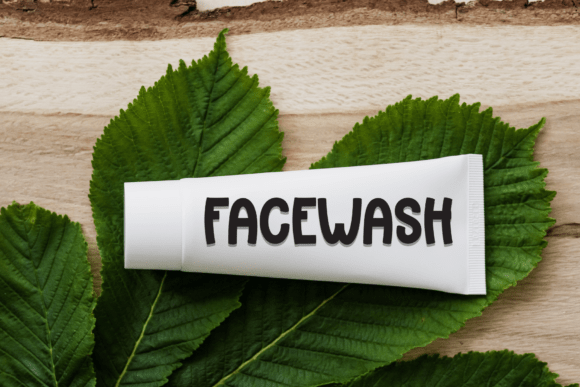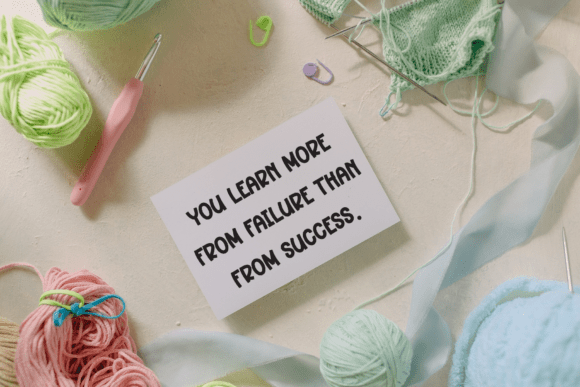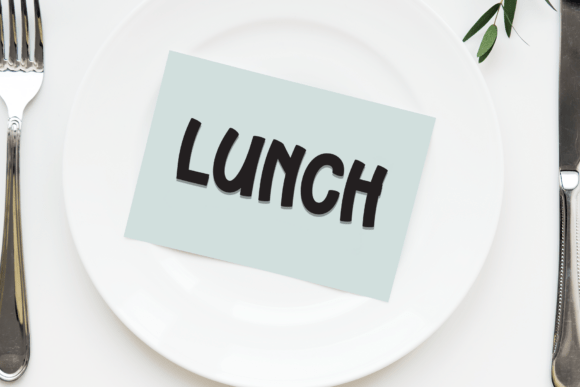
Introduction to Digital Stories Font
Digital Stories is a casual and neat display font that combines simplicity with a friendly, approachable vibe.
Featuring clean lines, balanced letterforms, and subtle rounded edges, it captures the essence of modern handwritten typography with a polished finish Ideal for branding, headlines, packaging, and digital content, it adds a warm and inviting touch to any design.